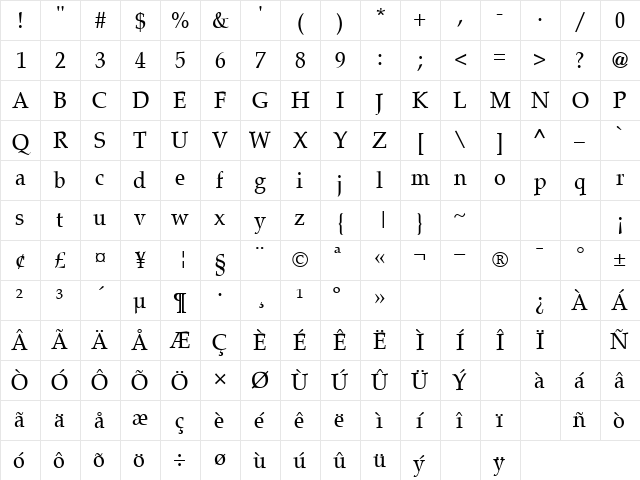
ObloquyCond Normal
Design Context for ObloquyCond
ObloquyCond is a composed and adaptable typeface that performs quietly and consistently across a wide range of design contexts. Its narrow stance lets it pack a punch even in space-constrained designs.
Pro Tip: Use ObloquyCond in both headline and body roles to test its range before committing to a single application.